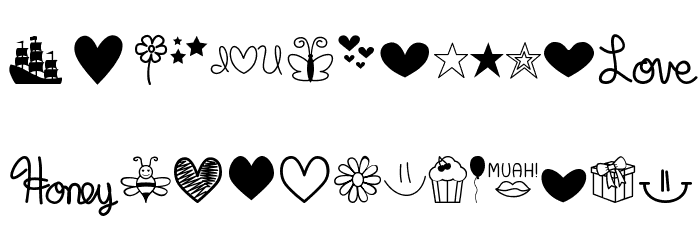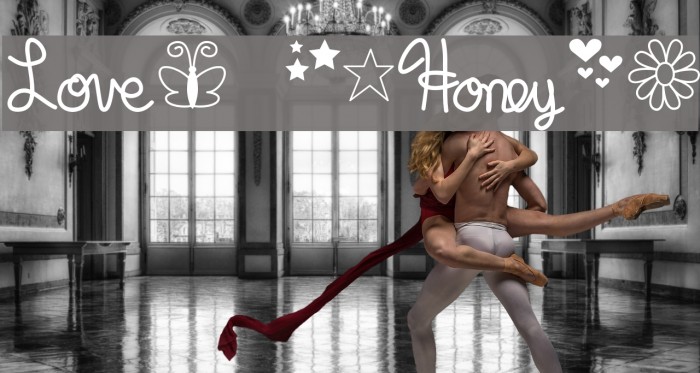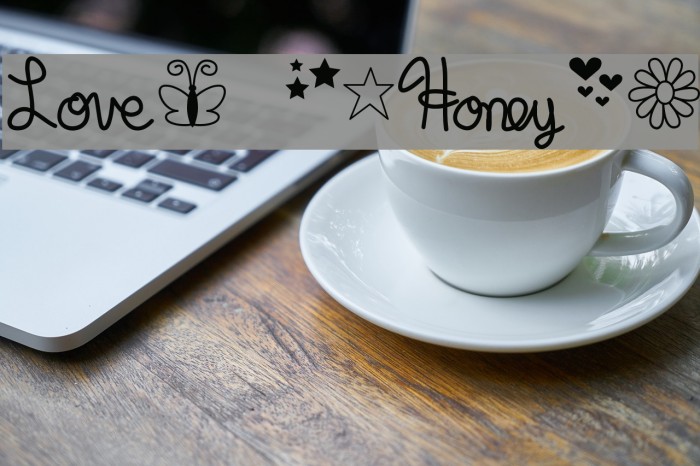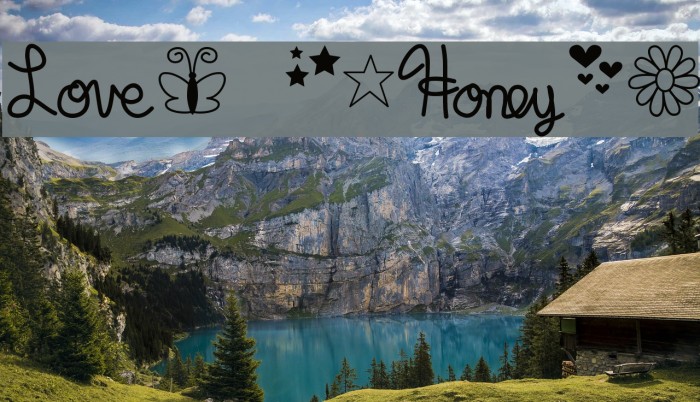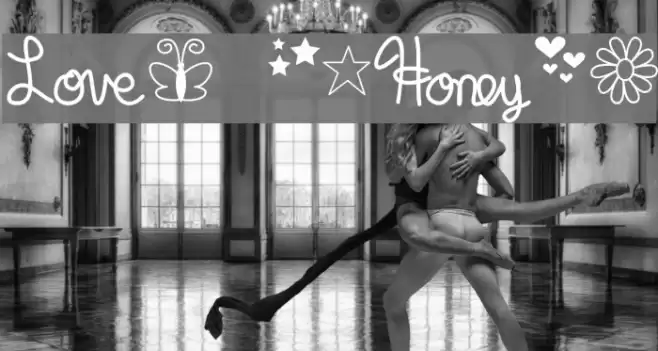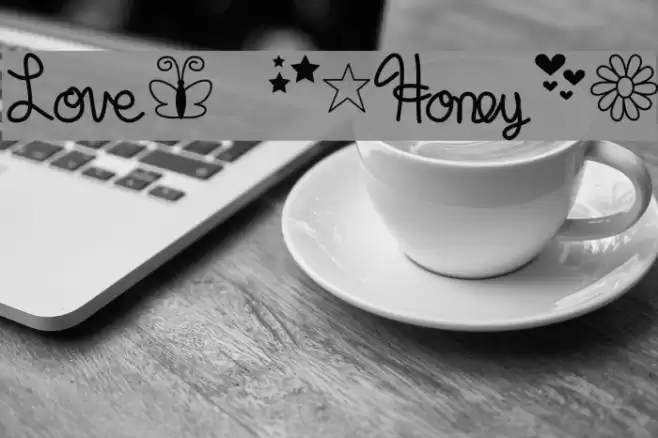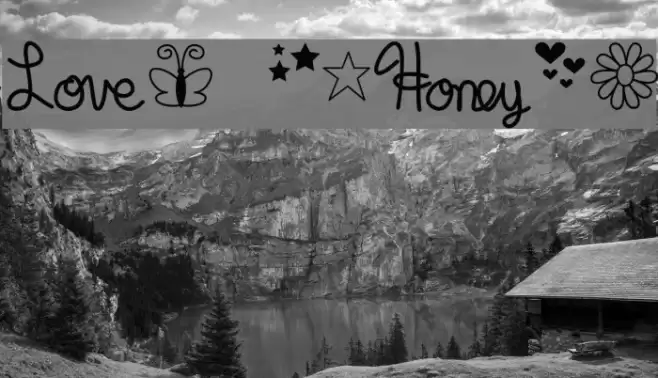
MF Dings Font
This is a decorative font featuring a variety of playful and whimsical symbols and icons. It includes elements such as hearts, stars, flowers, and other charming motifs, each designed with a hand-drawn, doodle-like quality. The style is casual and fun, making it ideal for projects that require a touch of creativity and lightheartedness. The characters are bold and easily recognizable, with a consistent line weight that adds to the cohesive look of the set. This font is perfect for adding a personal and artistic flair to any design.
A playful decorative font with whimsical, hand-drawn symbols.
- Proposed Projects: Greeting cards, children's books, scrapbooking, party invitations, and playful branding.
- Use Case: Logos, Headlines, Decorative elements